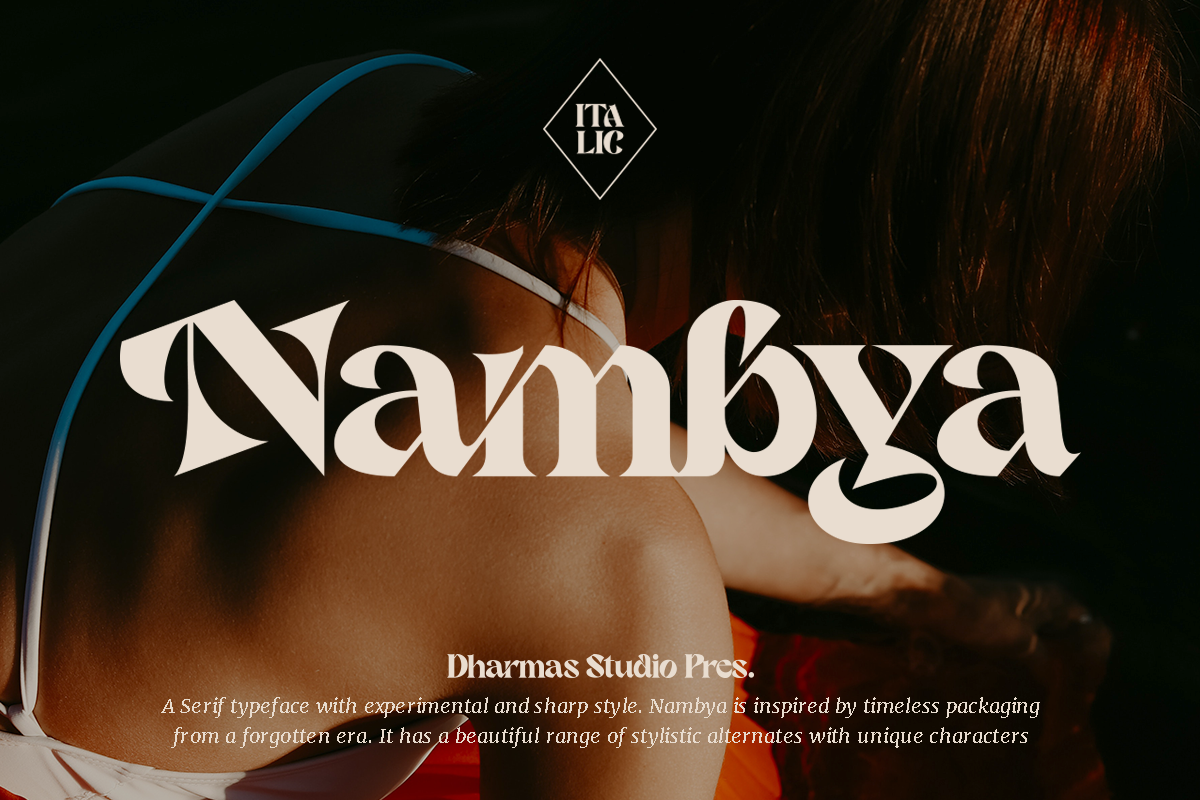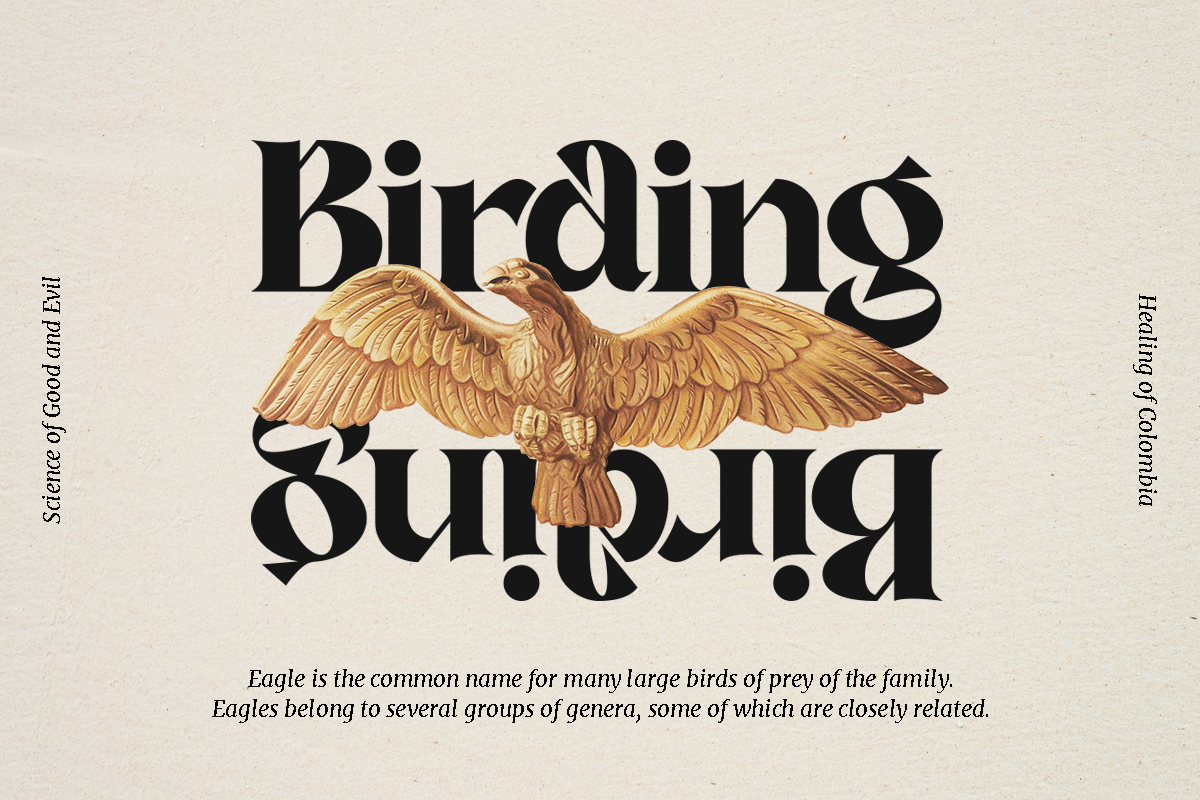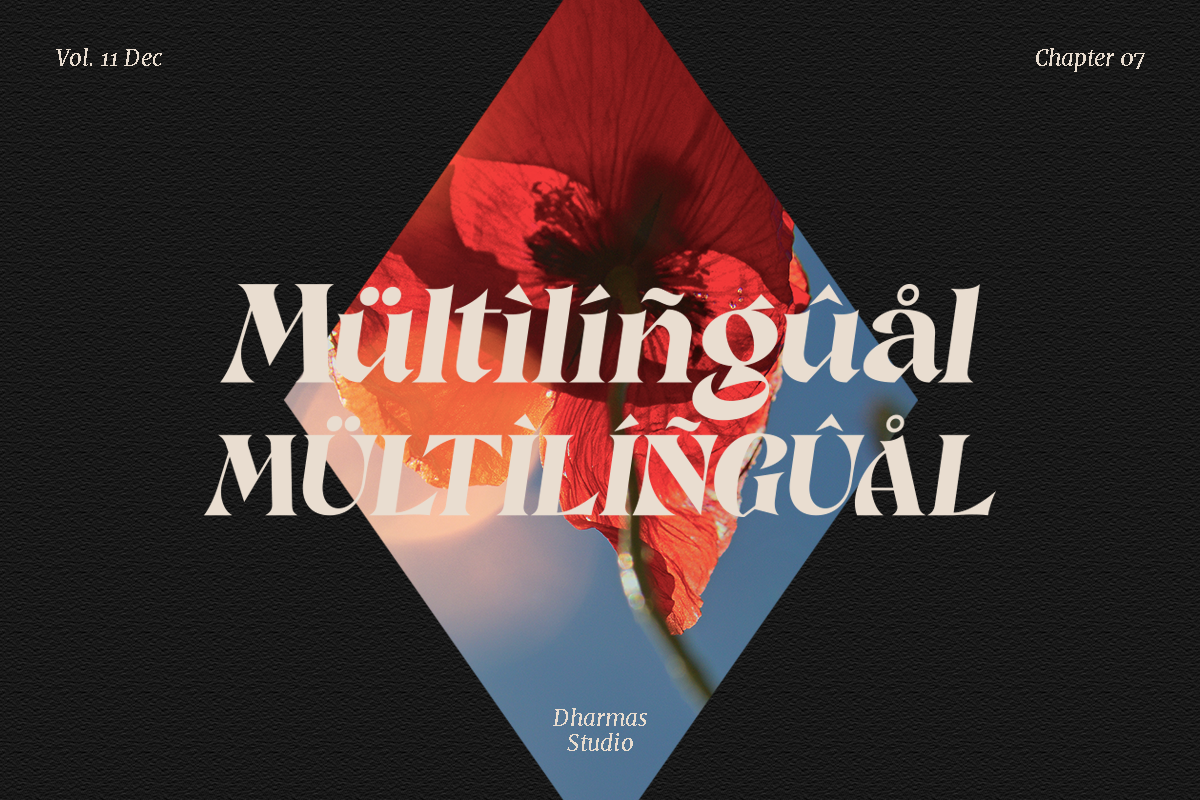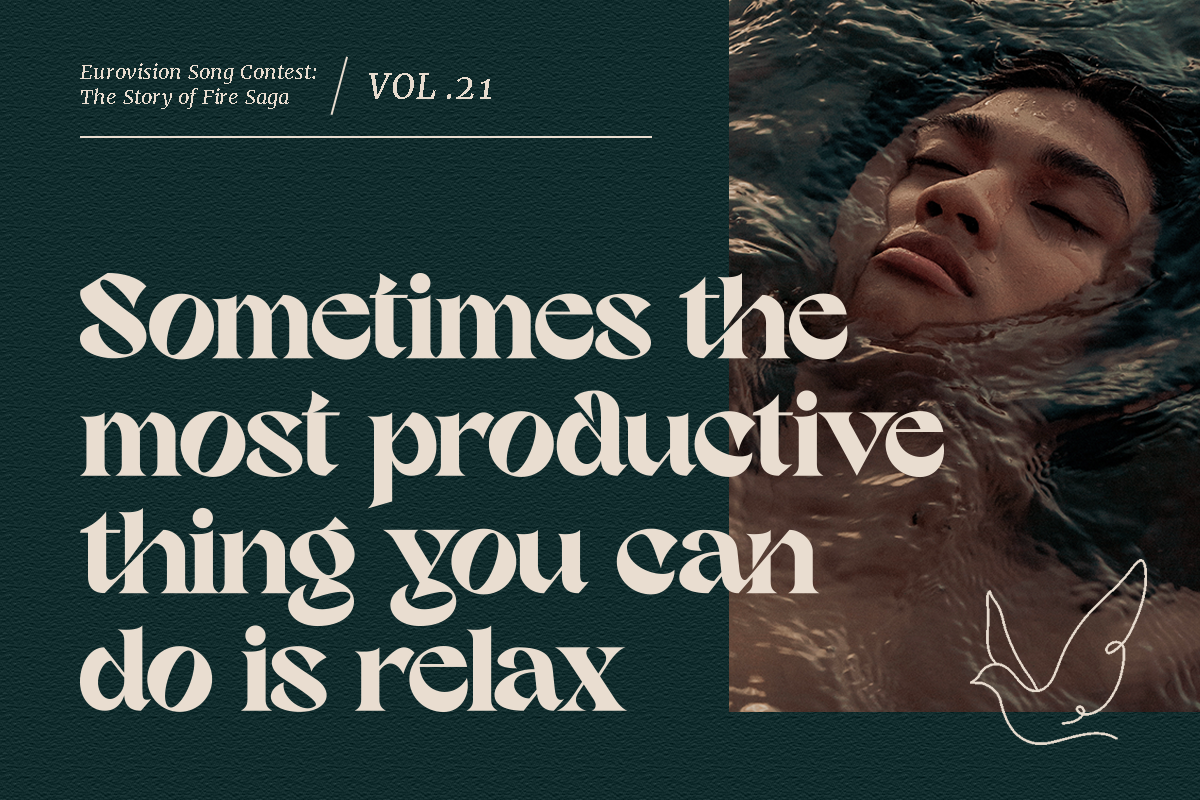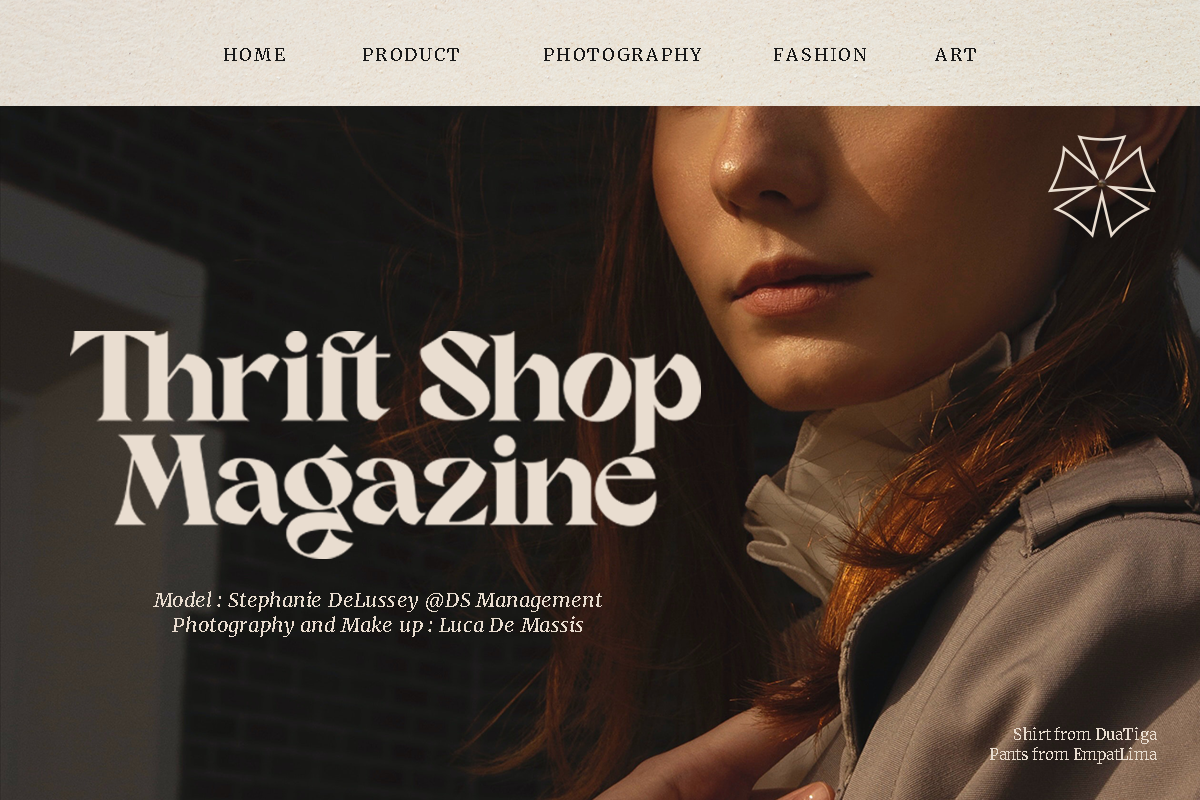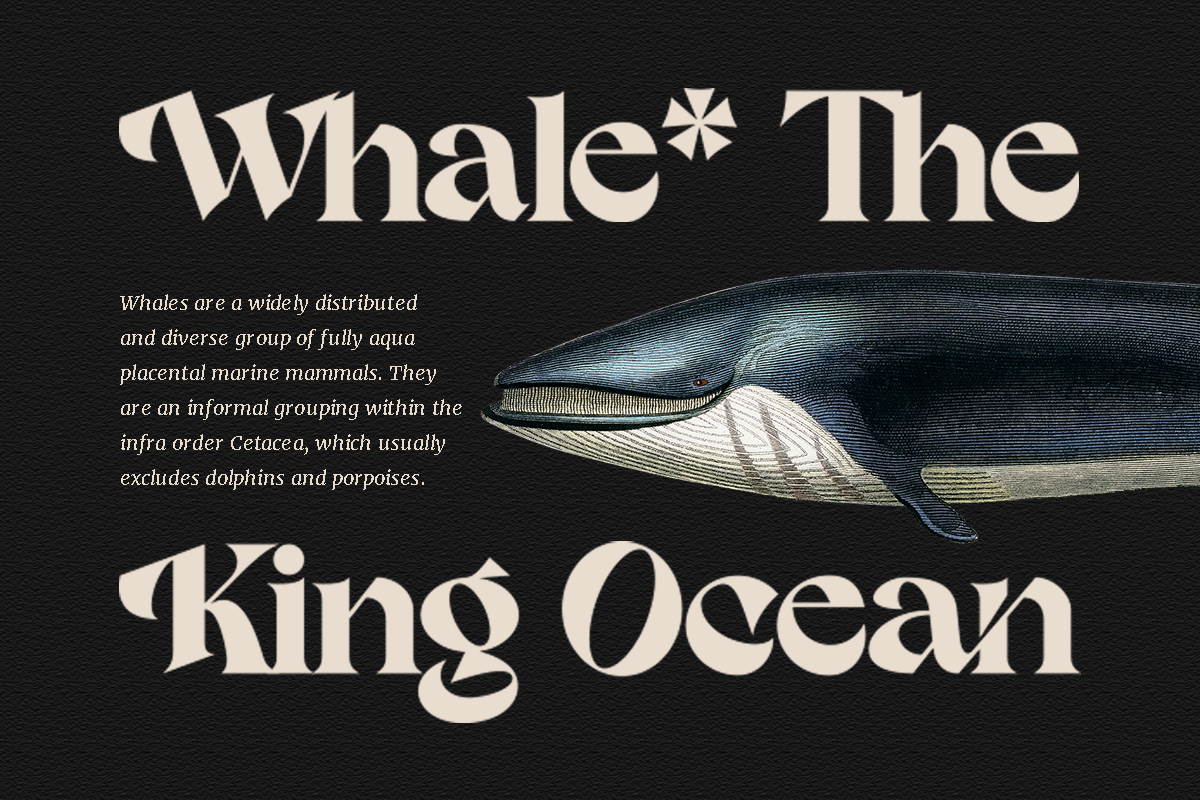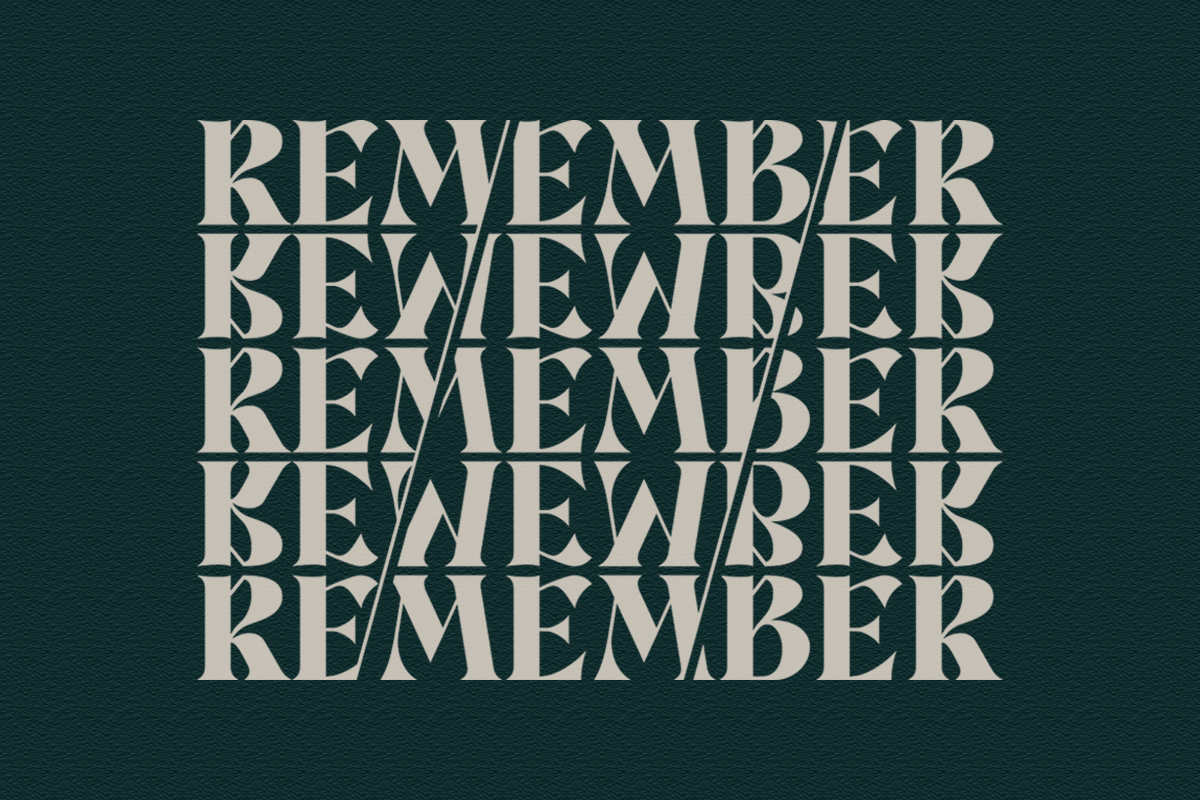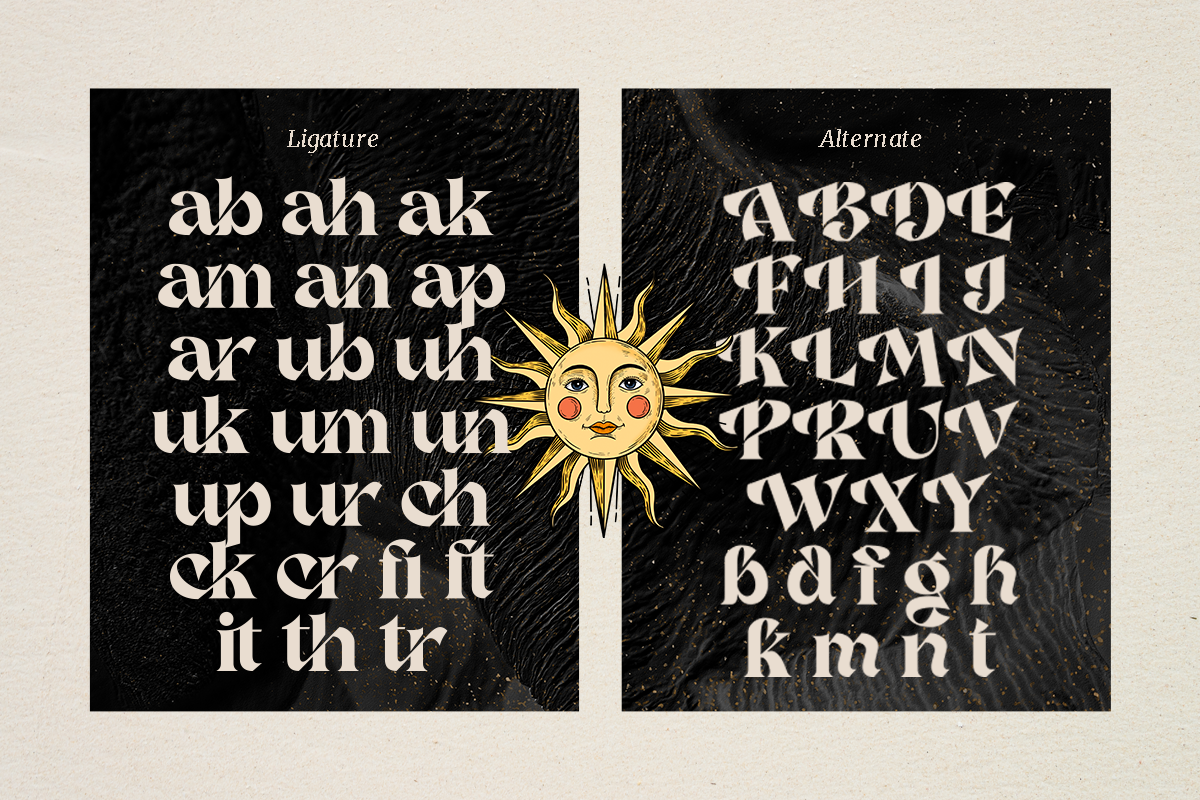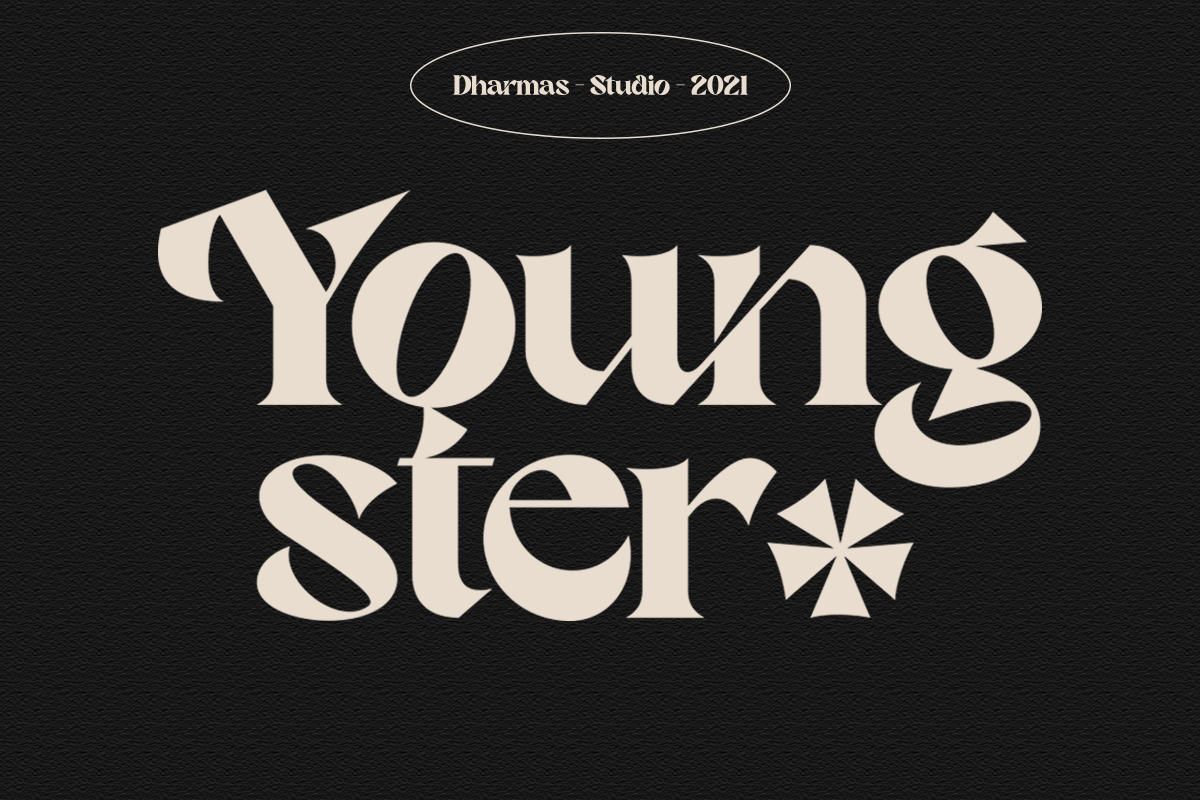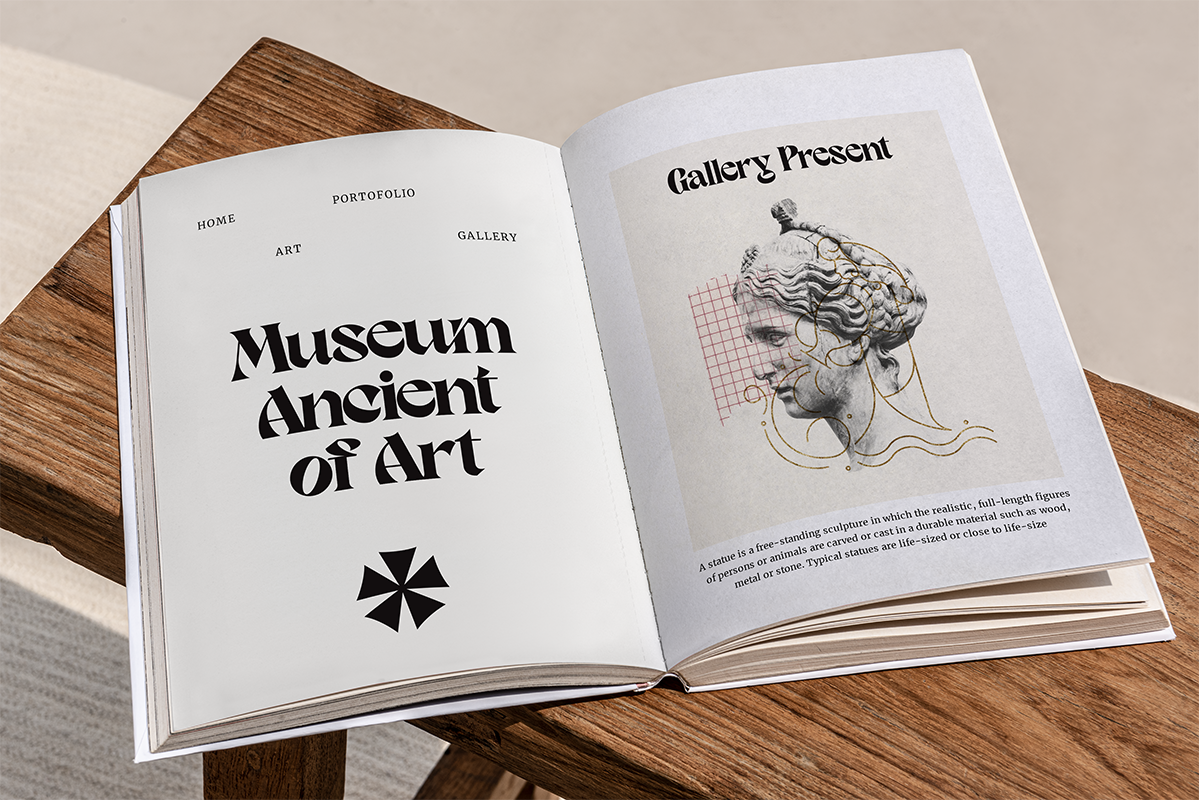
Nambya - Sharp Serif Typeface
Introducing new sharp style font, Nambya!
Nambya - A serif typeface with an experimental and sharp style. Nambya is inspired by timeless packaging from a forgotten era. It has a beautiful range of stylistic alternates with unique characters.
Nambya - fearless and chic typeface perfect for big headlines for both print and web. It comes with Italic style, unique lower and uppercase plus numbers, punctuation & multilingual letters
- Unique letterforms